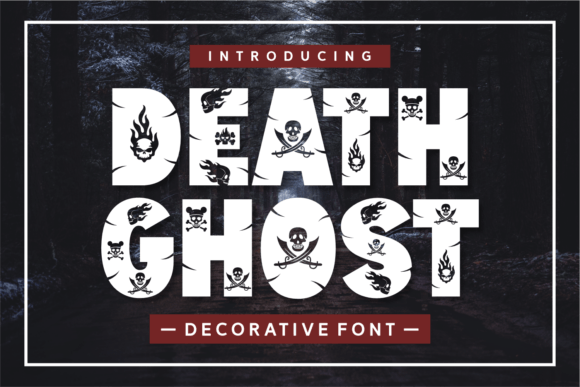
Get Ready to Haunt Your Designs with the Death Ghost Font
As a designer, have you ever found yourself stuck in a creative rut, searching for the perfect font to give your project that extra oomph? I know I have! And sometimes, all it takes is a single font to bring an idea to life. For me, that font was the Death Ghost Font – a bold and spooky decorative font that’s perfect for Halloween-related crafts and more.
The Death Ghost Font is more than just a font, it’s a tool for designers to unleash their creativity and add a touch of darkness to their work. With its PUA encoding, you can easily access all the glyphs and create unique designs that will leave a lasting impression. Whether you’re working on a Halloween-themed project or just want to add some edge to your design, the Death Ghost Font is a valuable addition to any designer’s toolkit.
Death Ghost Font Key Features
- Font Family: Death Ghost is a unique, hand-drawn font that adds a touch of macabre elegance to any design.
- Size: The font comes in a single weight, making it suitable for a wide range of applications, from small text to large headlines.
- Resolution: Designed to be scalable, Death Ghost Font looks great at any resolution, from low-resolution print materials to high-resolution digital displays.
- Unique Characteristics: The font features intricate, hand-drawn details and subtle ghostly effects that give it a hauntingly beautiful appearance.
Death Ghost Font Review
Overall, I think the “Death Ghost Font” has some great qualities, but it also has some limitations that make it not perfect for every project.
The font has a unique, eerie aesthetic that’s perfect for horror-themed projects or anything that needs a touch of the macabre.
The font is well-designed, with clear lines and a consistent style that makes it easy to read.
The font supports a wide range of languages, making it a great choice for international projects.
The font is quite ornate, which can make it difficult to use for projects where simplicity is key.
The font may not be the best choice for projects where legibility is crucial, as the intricate details can make it hard to read at small sizes.
The font lacks a bold or italic version, which can limit its versatility.
I think the “Death Ghost Font” is a great choice for projects that need a unique, spooky vibe, but it may not be the best fit for every project. With some careful consideration and planning, it can be a great addition to your design toolkit.
Tips for Getting the Most Out of Death Ghost Font
For best results, use Death Ghost Font in bold or italic styles to emphasize your text.
Experiment with different font sizes and colors to create a striking visual effect.
Use Death Ghost Font in combination with other fonts to create a unique and eye-catching design.
Death Ghost Font is ideal for:
Horror movie posters and promotional materials.
Spooky-themed parties and events.
Dark and edgy social media graphics and advertisements.
Alternatives to Death Ghost Font for Designers
The Death Ghost Font is a unique, handwritten font with a spooky and eerie feel. However, it may not be suitable for all design projects. Here are some alternatives that designers can consider:
The Great Vibes Font is a modern, handwritten font with a friendly and approachable feel. It is perfect for designs that require a casual and relaxed tone. Compared to Death Ghost Font, Great Vibes Font is more suitable for everyday use and has a softer, more rounded feel. It is ideal for creating invitations, greeting cards, and social media graphics.
The Alex Brush Font is a elegant, handwritten font with a luxurious feel. It is perfect for designs that require sophistication and refinement. Compared to Death Ghost Font, Alex Brush Font is more elegant and refined, making it ideal for creating high-end branding materials, wedding invitations, and luxury product packaging.